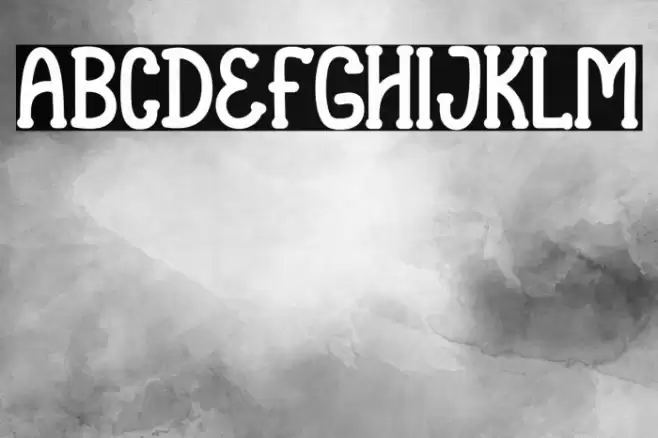
Super Kids Font
Super Kids Description
This playful and whimsical font features rounded, bold characters with a hand-drawn feel. The letters have a consistent stroke width, giving them a uniform appearance, while the slight curls and loops add a touch of fun and creativity. The font is highly legible, making it suitable for both children and adults. The numbers and special characters maintain the same playful style, ensuring a cohesive look across all text. Its unique style makes it stand out, perfect for projects that require a friendly and approachable tone.
A playful, bold font with rounded, hand-drawn characters from Cartoon fonts.
- Proposed Projects: Ideal for children's books, playful branding, educational materials, and creative posters.
- Overall Style: Playful